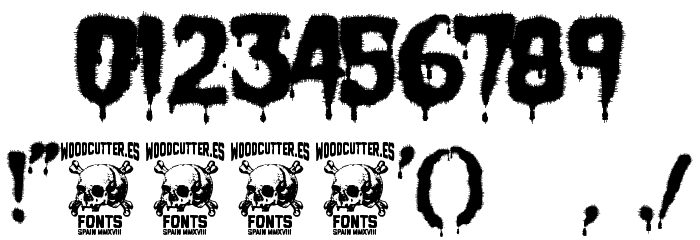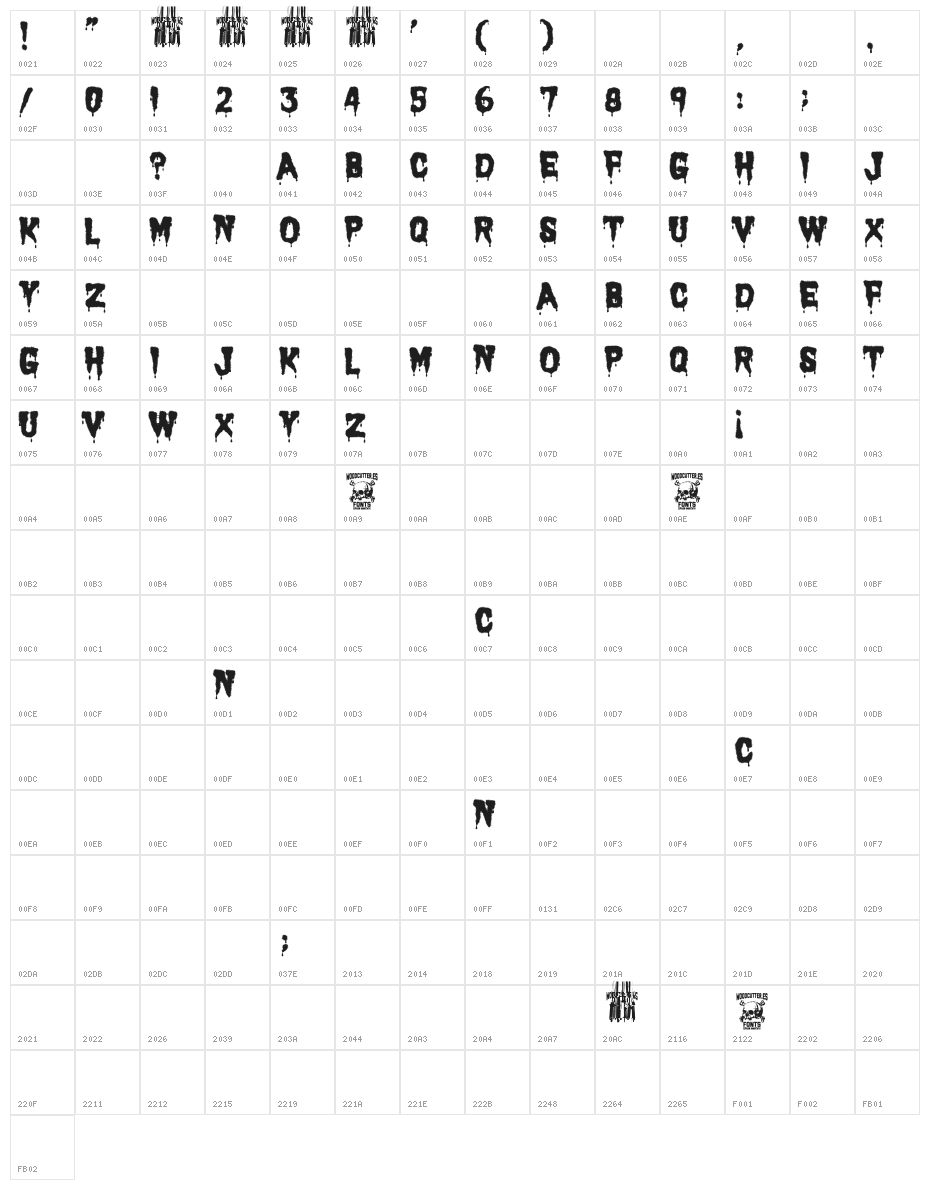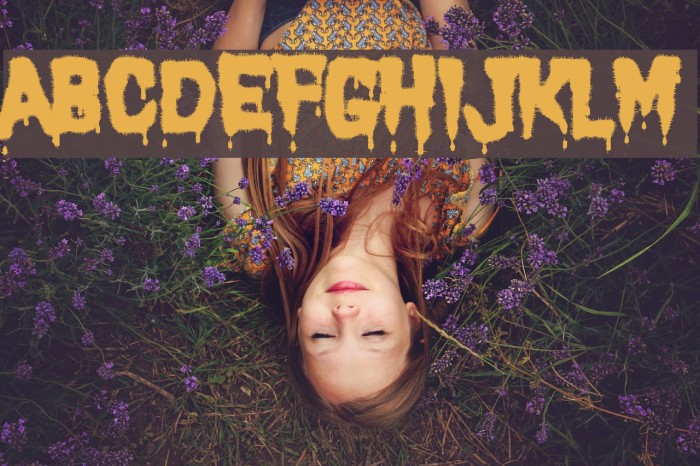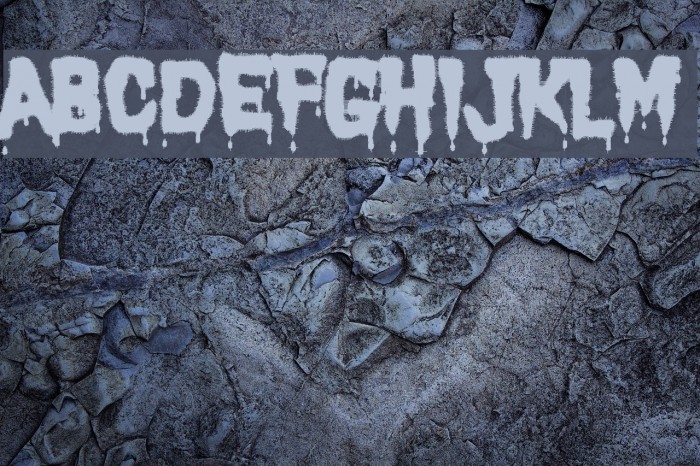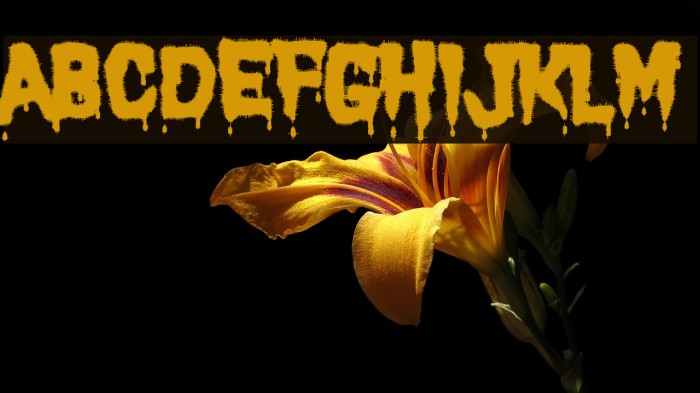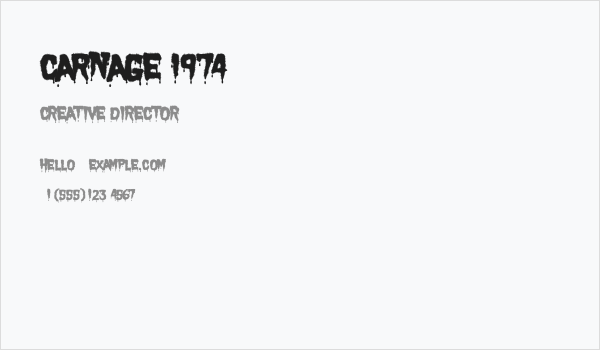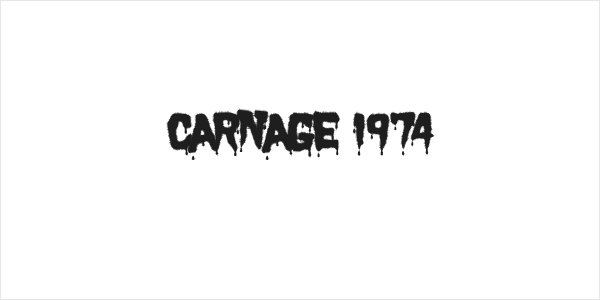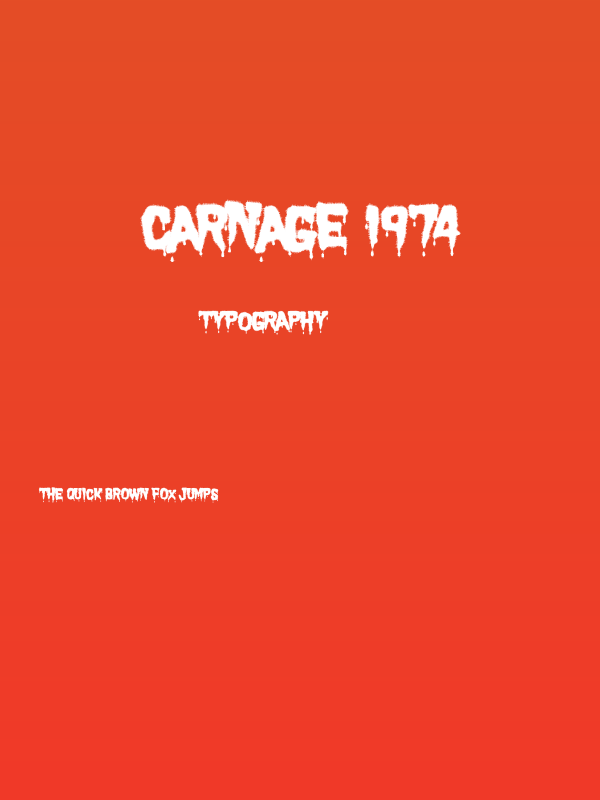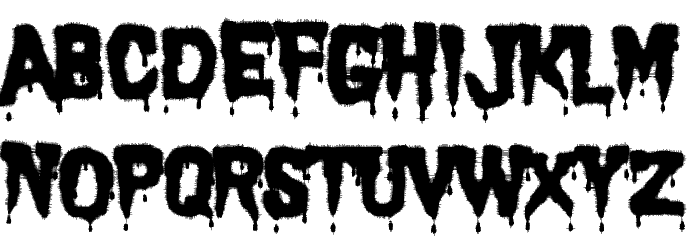
Carnage 1974 Font
Carnage 1974 Description
This font features a bold, dramatic style with a dripping effect that gives it a horror-themed appearance. The characters are heavily stylized, with uneven edges and a textured look that resembles dripping paint or blood. This design choice creates a sense of movement and chaos, making it ideal for projects that require a strong visual impact. The uppercase and lowercase letters maintain a consistent style, and the numbers and special characters are equally bold and expressive. The overall aesthetic is both eye-catching and unsettling, perfect for thematic designs.
| Use Case | Headlines, Posters, Thematic Designs |
| Proposed Projects | Ideal for Halloween-themed designs, horror movie posters, spooky event invitations, and any project requiring a dramatic, eerie aesthetic. |